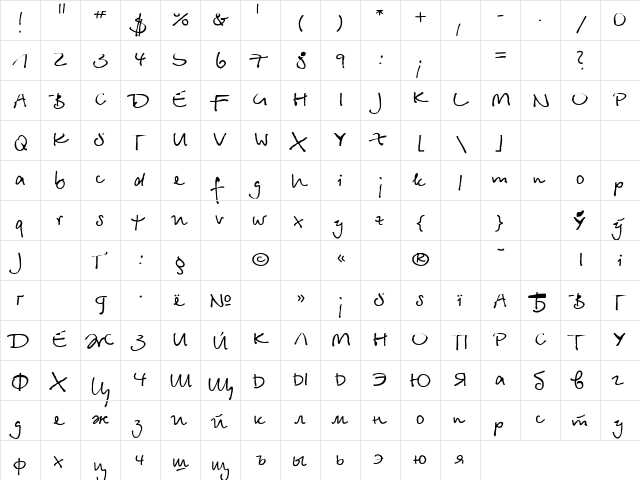
Betina Script Regular
Betina Script brings a calligraphic fluidity to the page — its connecting strokes and expressive curves give it an unmistakably human quality.
Font Pairing: Combine Betina Script with a simple geometric sans for maximum contrast — the tension between flowing curves and clean structure is a classic typographic pairing.
Pro Tip: Pair Betina Script with a clean sans-serif for supporting text. The contrast between fluid script and geometric structure creates an elegant typographic hierarchy.